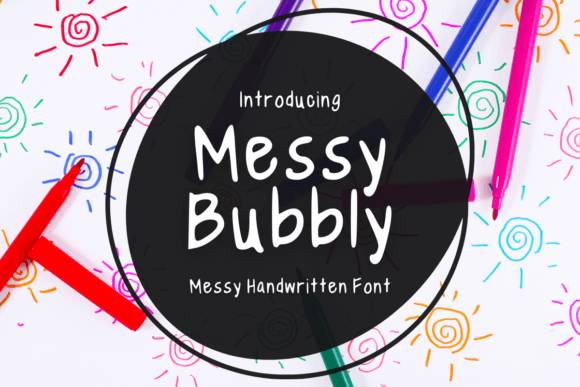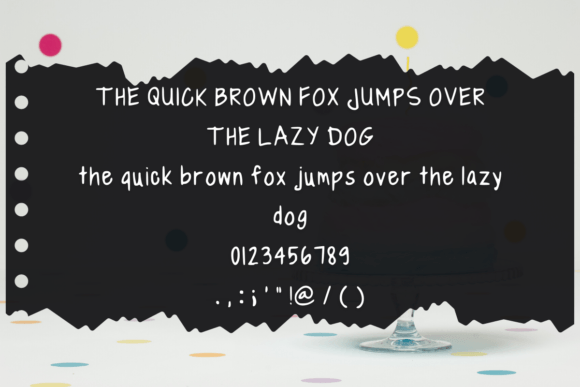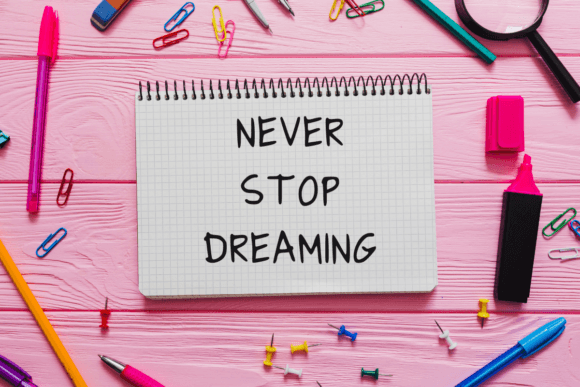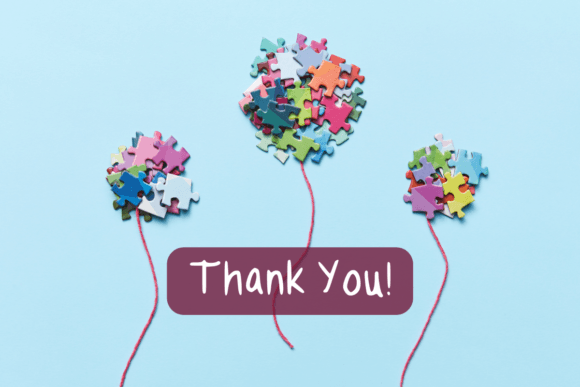
Messy Bubbly Font
About Messy Bubbly Font
Messy Bubbly is a messy and cute handwritten font. Its childish and friendly style makes it suitable for lots of designs and projects. This font will give your projects an informal and playful look!